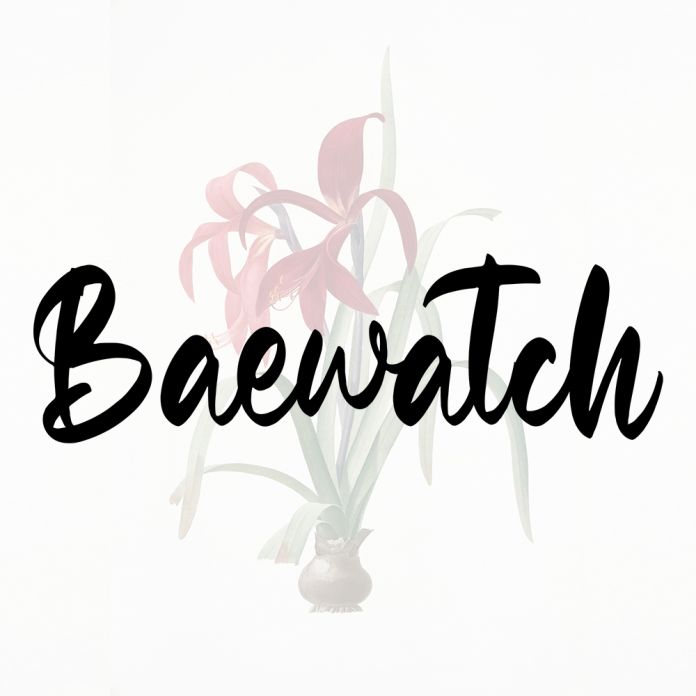
Baewatch is a beautiful, elegant and thin lettered handwritten font. It is suitable for any branding, product packaging, invitation, quote, t-shirt, label, poster, logo that you wish to develop.